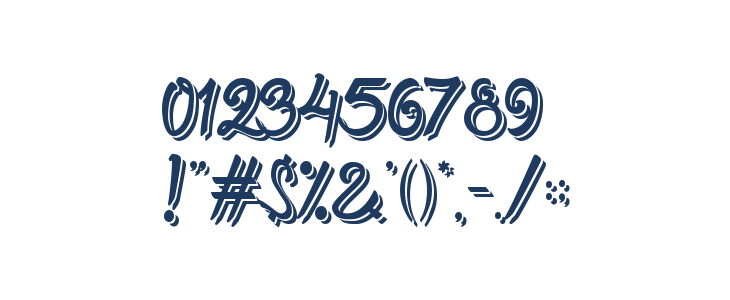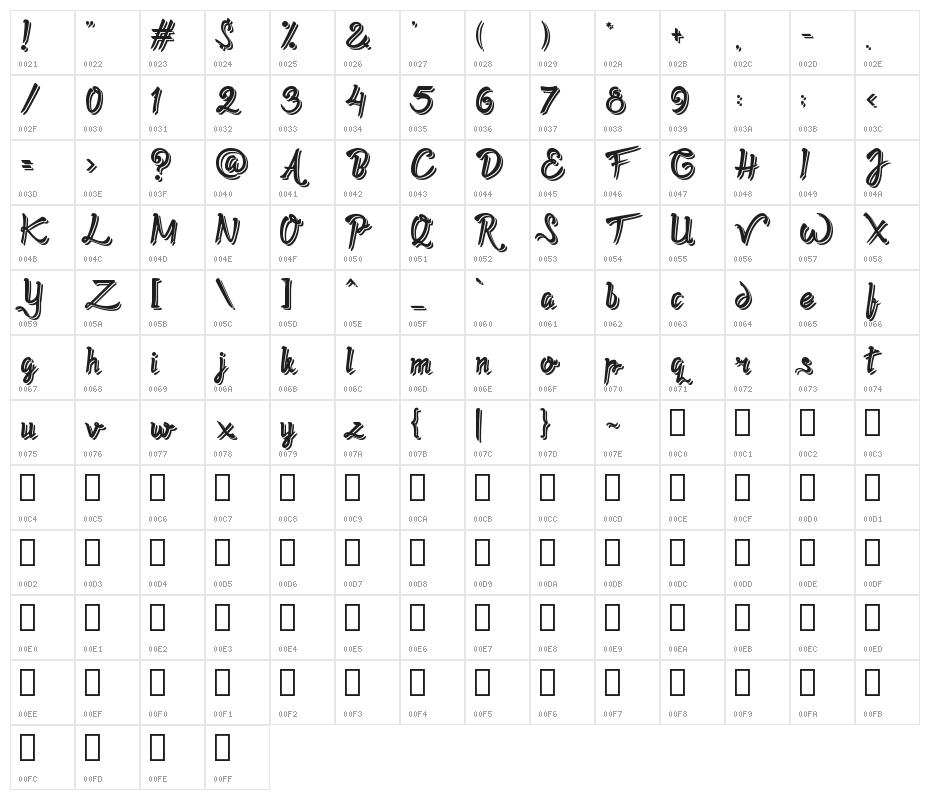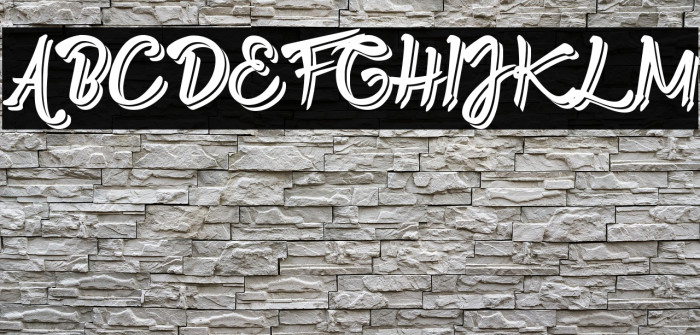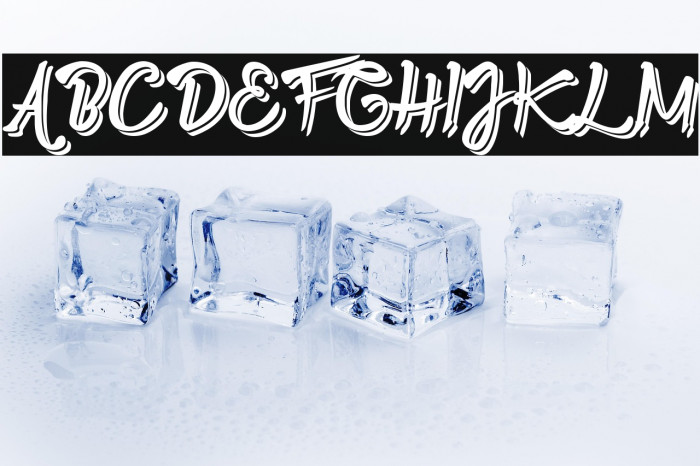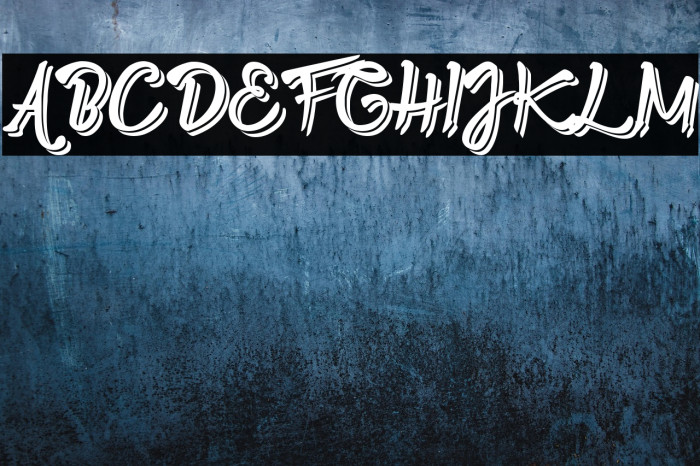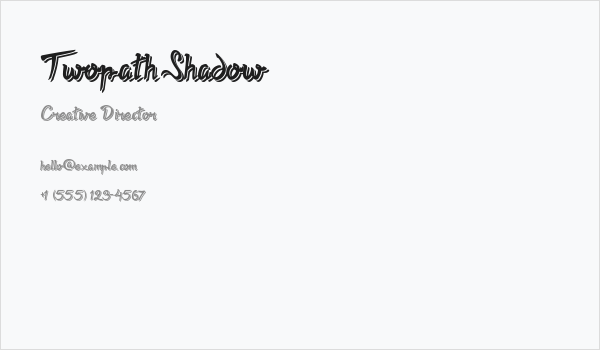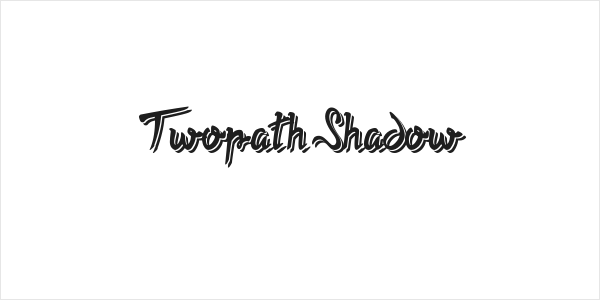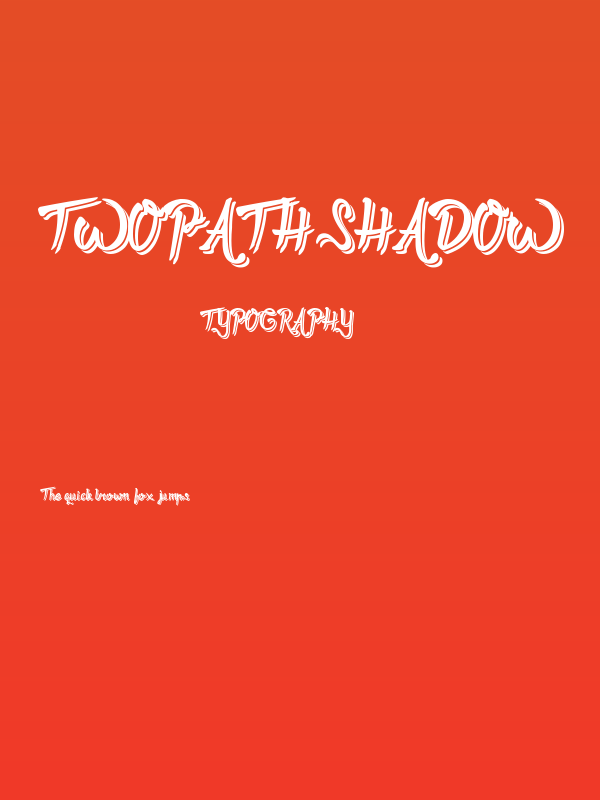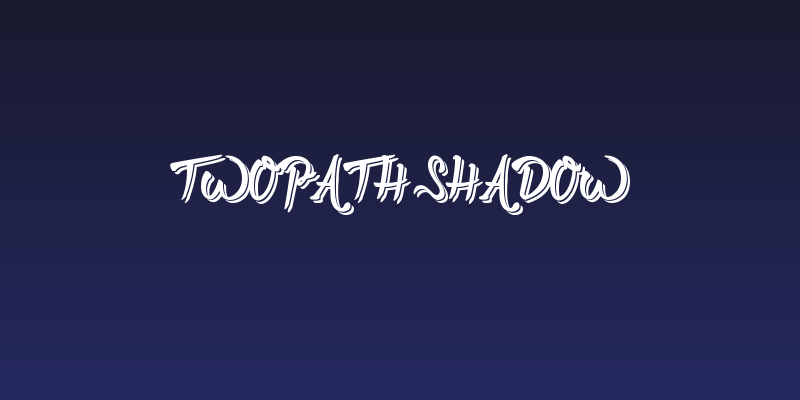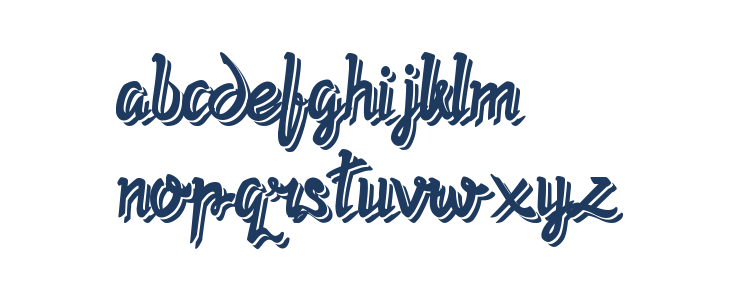
Twopath Shadow Font
Twopath Shadow Description
This font features a bold, dynamic script style with a distinct shadow effect that adds depth and dimension. The characters are fluid and connected, giving a sense of movement and energy. The uppercase letters are tall and elegant, while the lowercase letters maintain a consistent flow. Numbers and special characters are crafted with the same attention to detail, ensuring a cohesive look across all elements. The shadow effect enhances the visual impact, making it suitable for eye-catching designs.